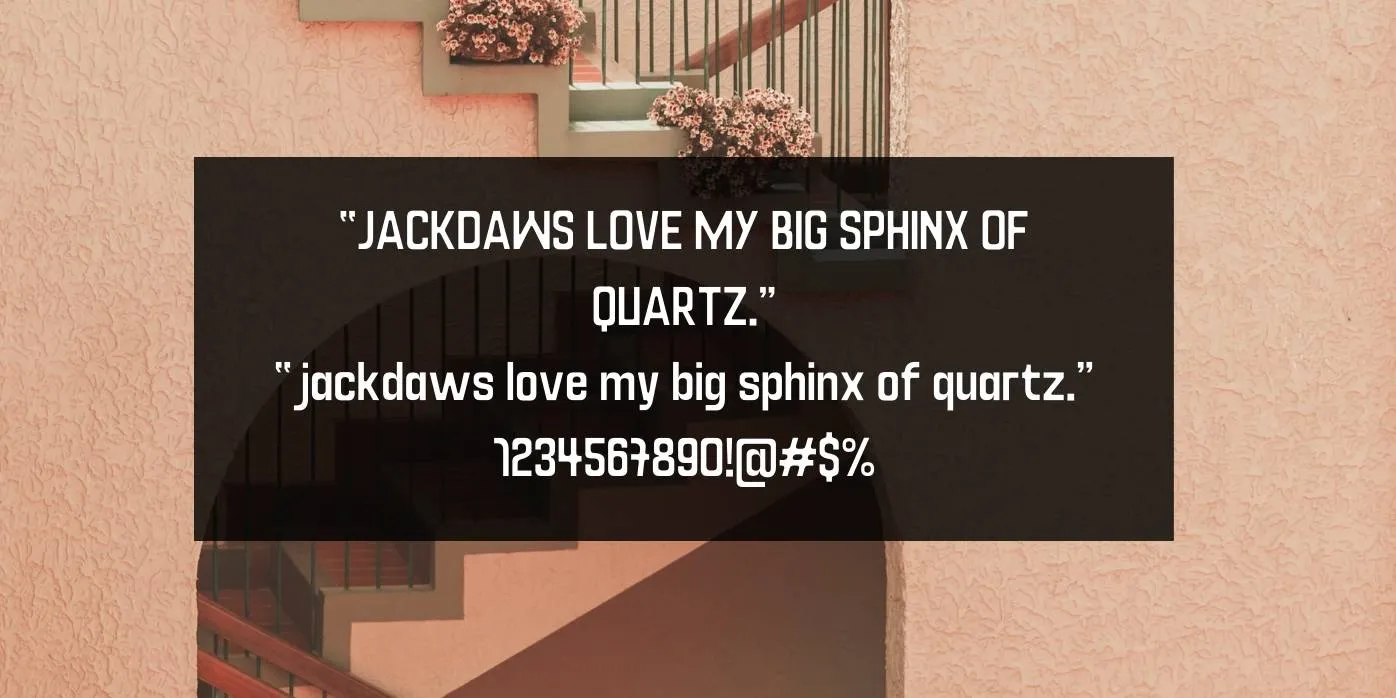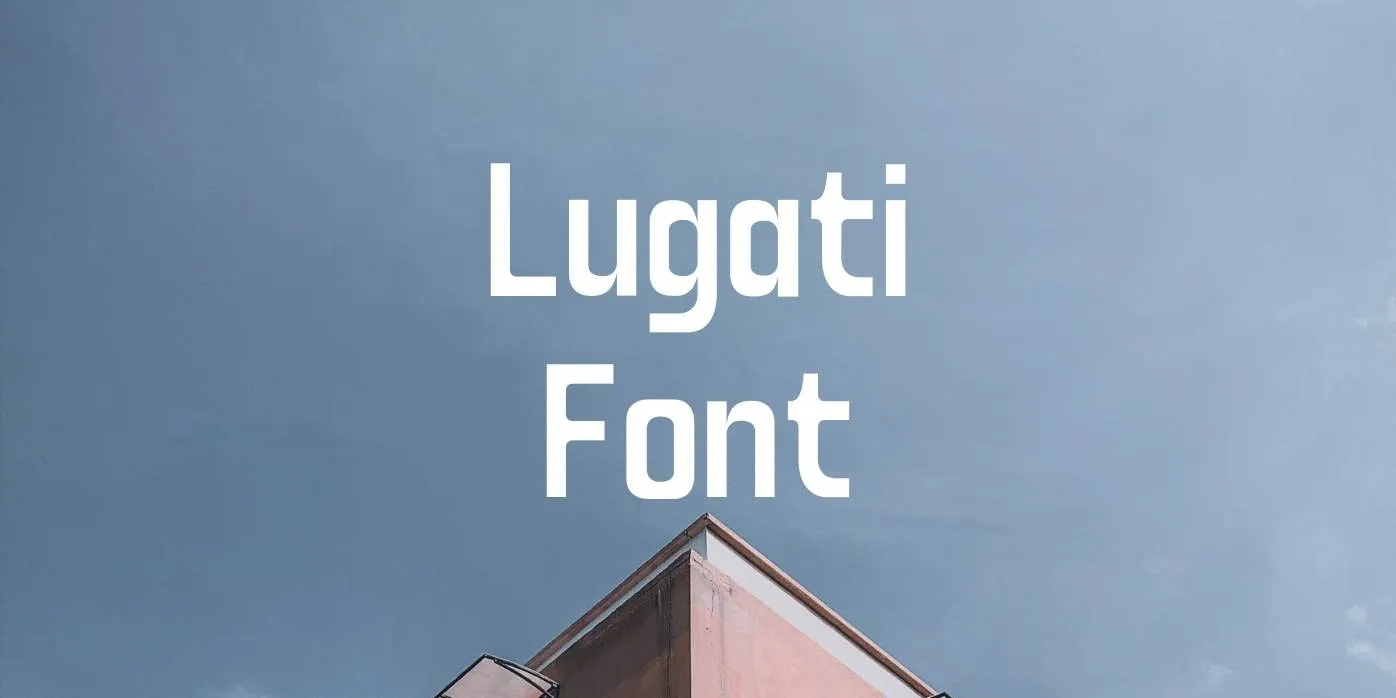
Lugati Font
Today, we present a very modern font family that is known by the name Lugati Font. It belongs to the sans serif family. This typeface was designed by Leonit Gashi. The designer has given it a very contemporary touch.
For more classic features, you will have to use its alternative days font which has the same features. The font family comprises 6 different styles. These styles are namely Regular, Italic, Bold, Bold Italic, Black, and Black Italic. All these styles have their own unique charm and can be used for various purposes.
The italic versions of the fonts are particularly useful for adding a touch of elegance to your designs.